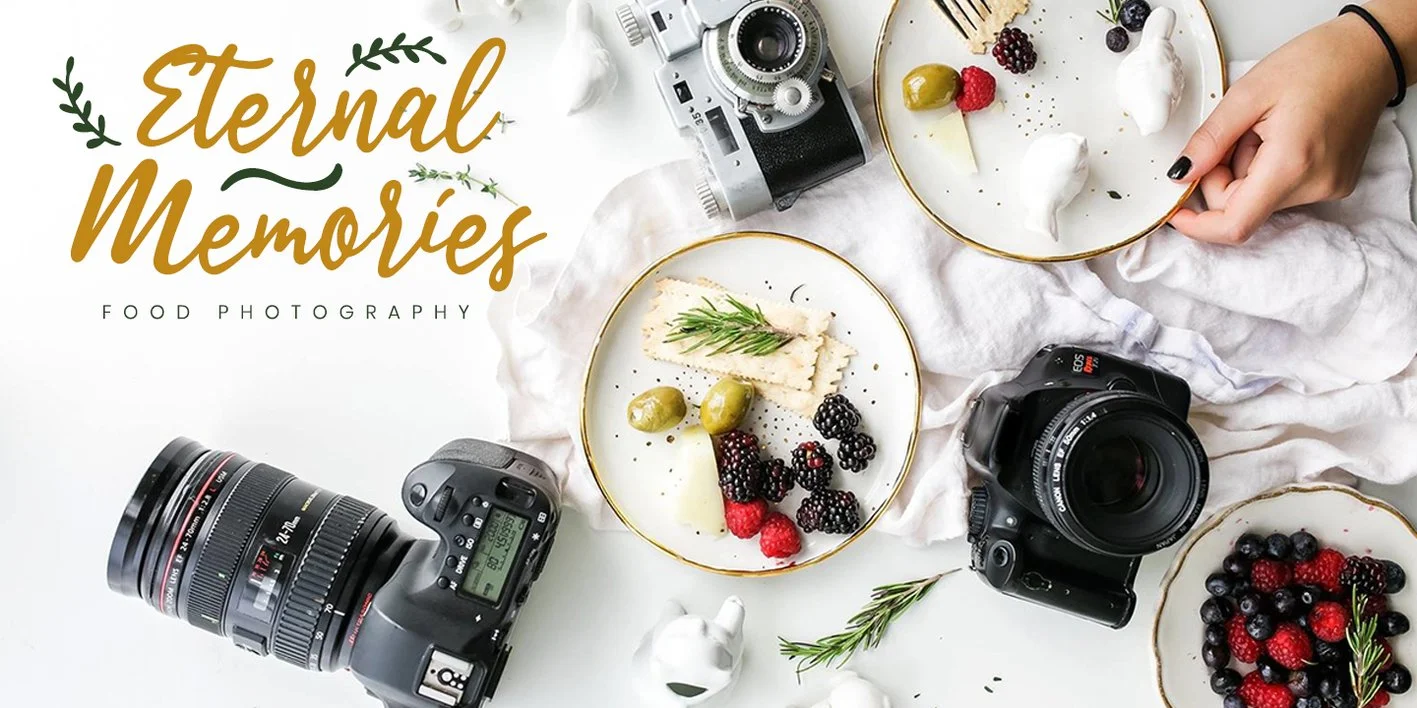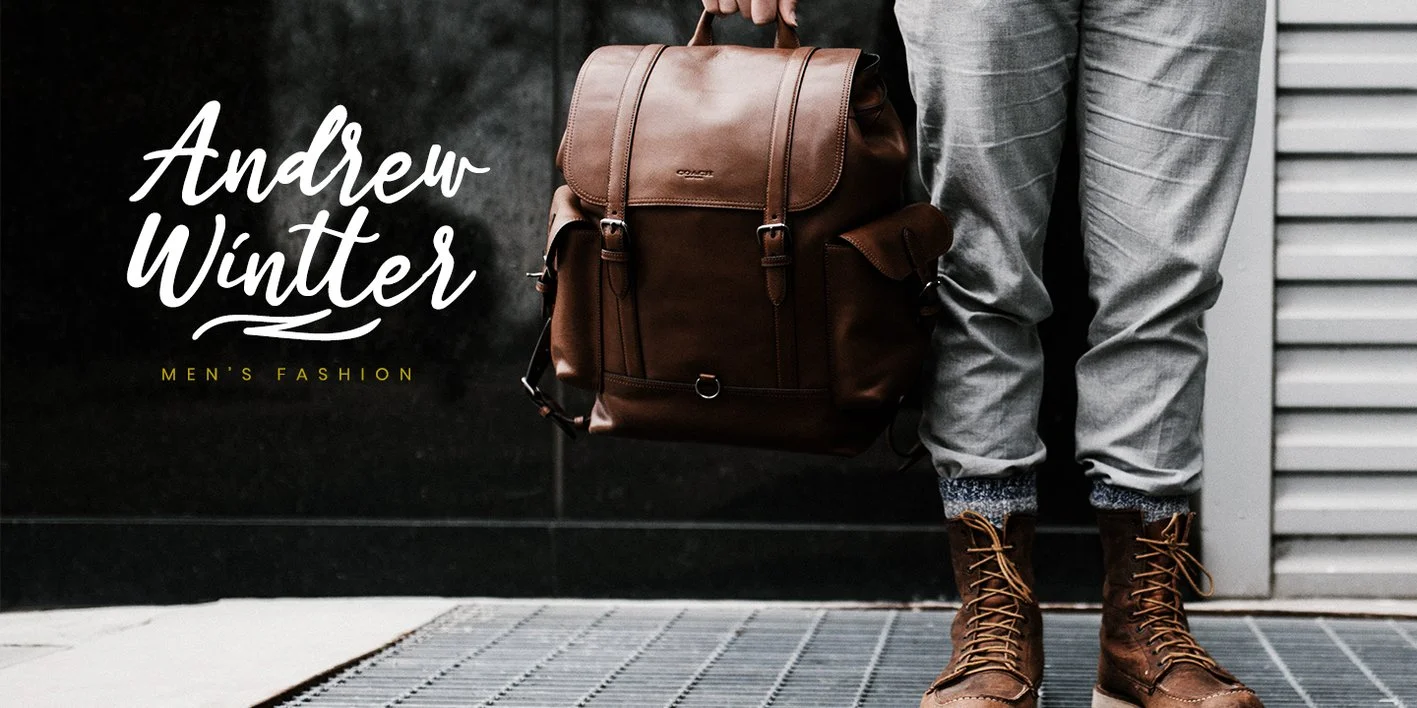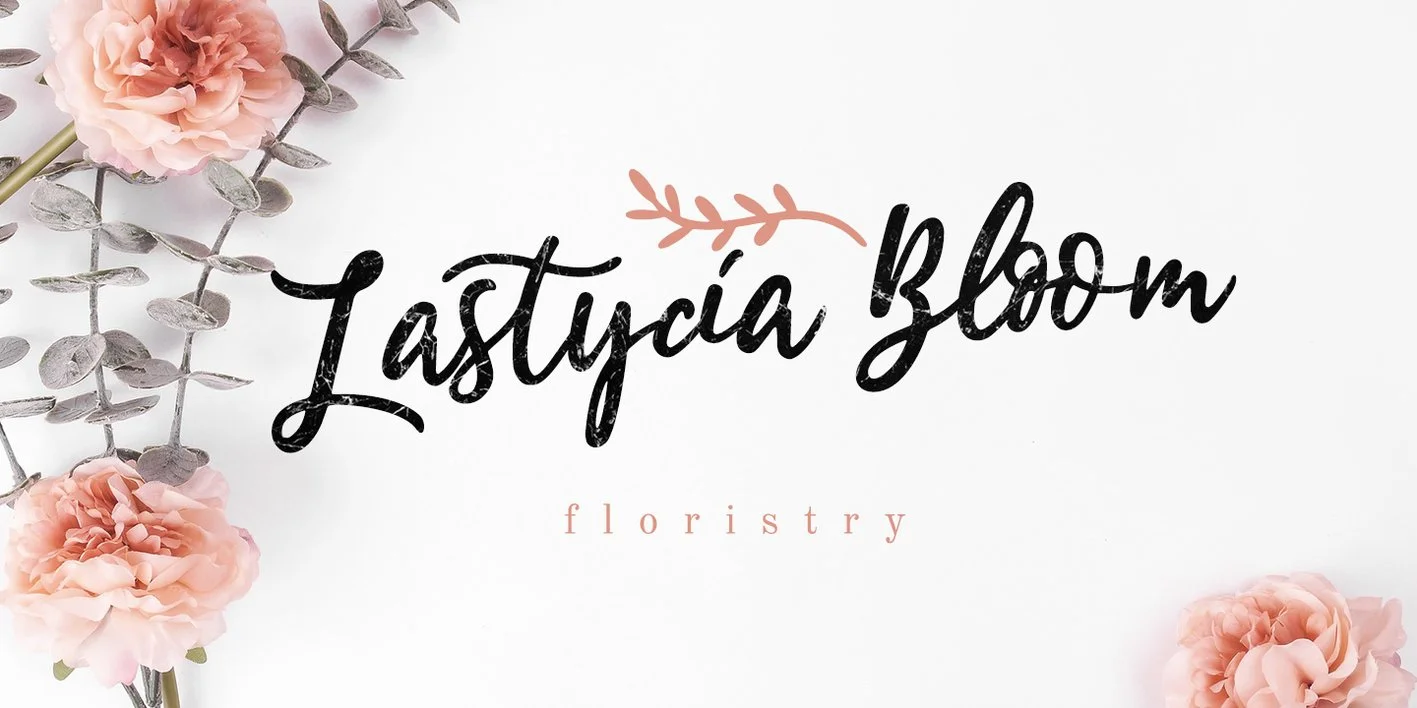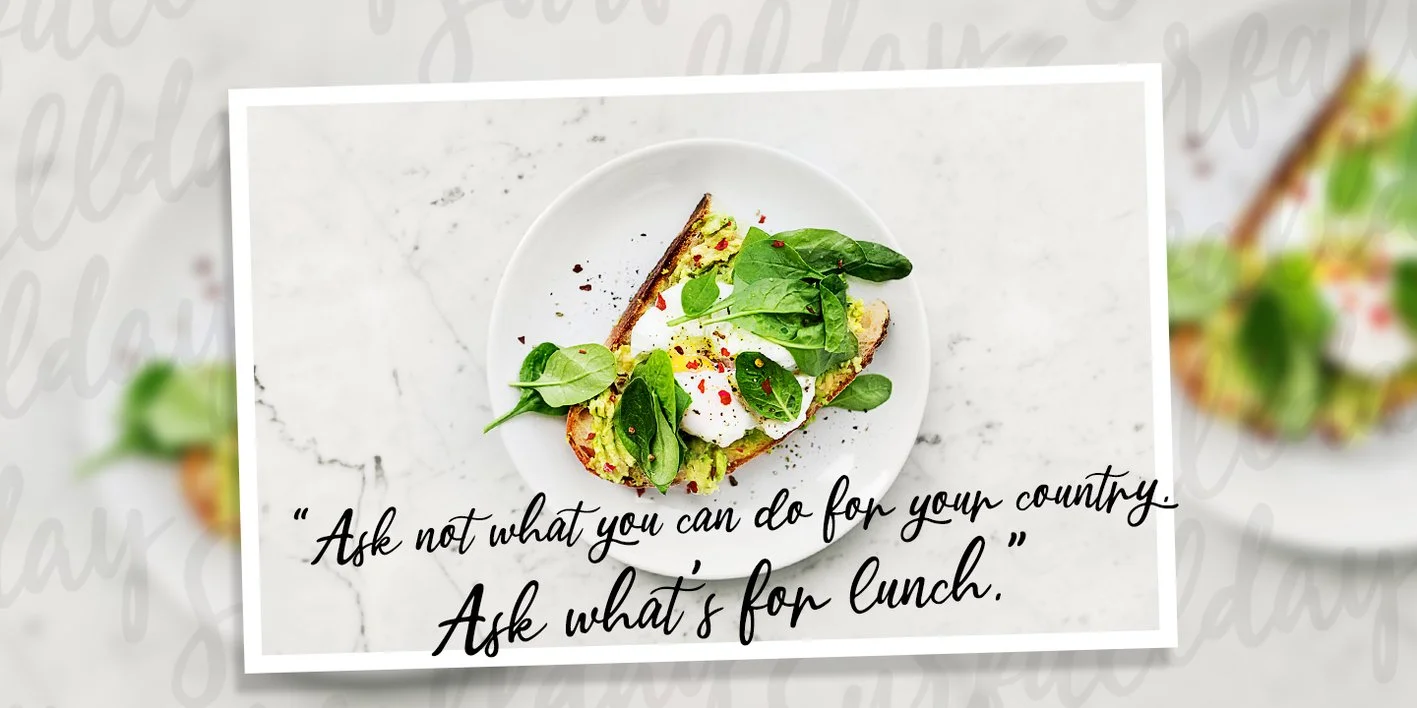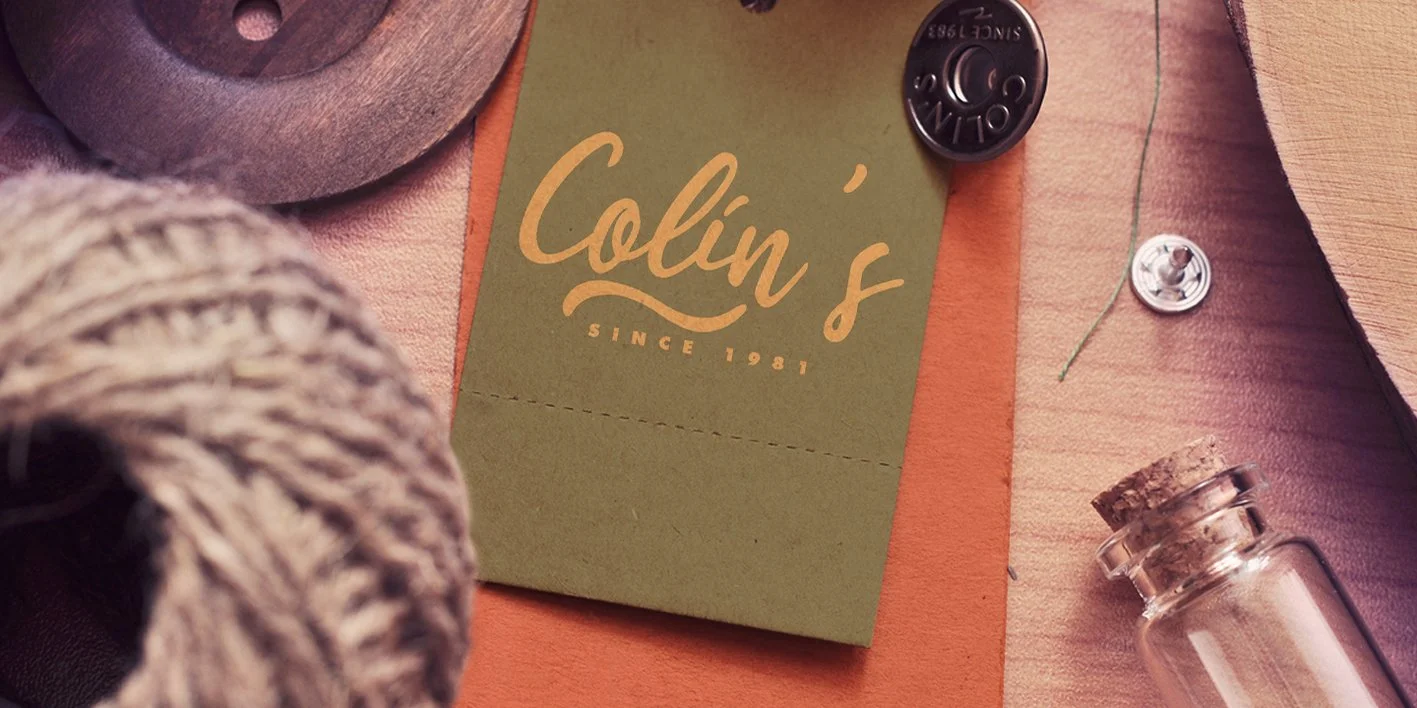
Estylle Madison Font
Typography shapes perception at a subconscious level. Estylle Madison leverages the kind of restraint that lets content lead to make every composition feel considered. The typeface brings an elegant, calligraphic sensibility to a broad range of creative disciplines, with refined proportions and careful stroke modulation that holds up whether the work is print-first or screen-first.
In practice, Estylle Madison proves particularly effective for beauty packaging, web design, social media graphics, annual reports, bridal materials. Designers reaching for it find that the type decisions feel resolved rather than laboured — a useful quality when client timelines are tight.
The range of applications extends to editorial layouts, high-end cosmetic packaging, luxury stationery, logo design. That breadth is deliberate: the proportions and spacing were stress-tested across a wide range of mock briefs before the typeface was finalised.
Estylle Madison sits comfortably alongside both classic and contemporary typefaces in multi-font hierarchies. It takes direction rather than competing for attention — a quality that experienced designers know is harder to find than it appears.
Art directors commissioning type-led campaigns find Estylle Madison a reliable choice for projects that demand both personality and restraint. The design avoids the self-conscious quirkiness that dates quickly, settling instead for considered distinctiveness that holds up over time.